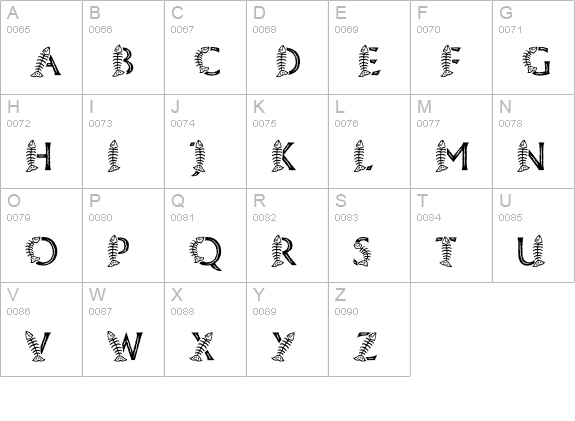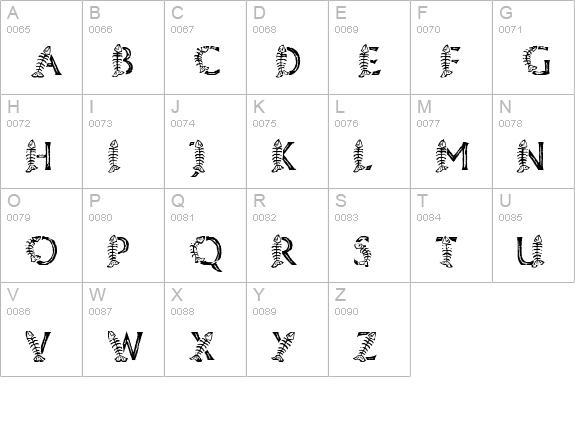
CK Fish Bones Font Details
Introducing CK Fish Bones font, a playful and whimsical typeface perfect for adding a touch of fun to your design projects. This unique font features quirky fish bone-inspired elements that give it a distinct and eye-catching look. CK Fish Bones font is versatile and can be used for a variety of design purposes, from branding to social media graphics. The best part? CK Fish Bones font is completely free to download at FontsMarket.com. Whether you're a designer looking to add a creative spin to your projects or a hobbyist looking for a fun font to play with, CK Fish Bones font is the perfect choice. Don't miss out on this fantastic font - download it for free today and let your creativity soar!